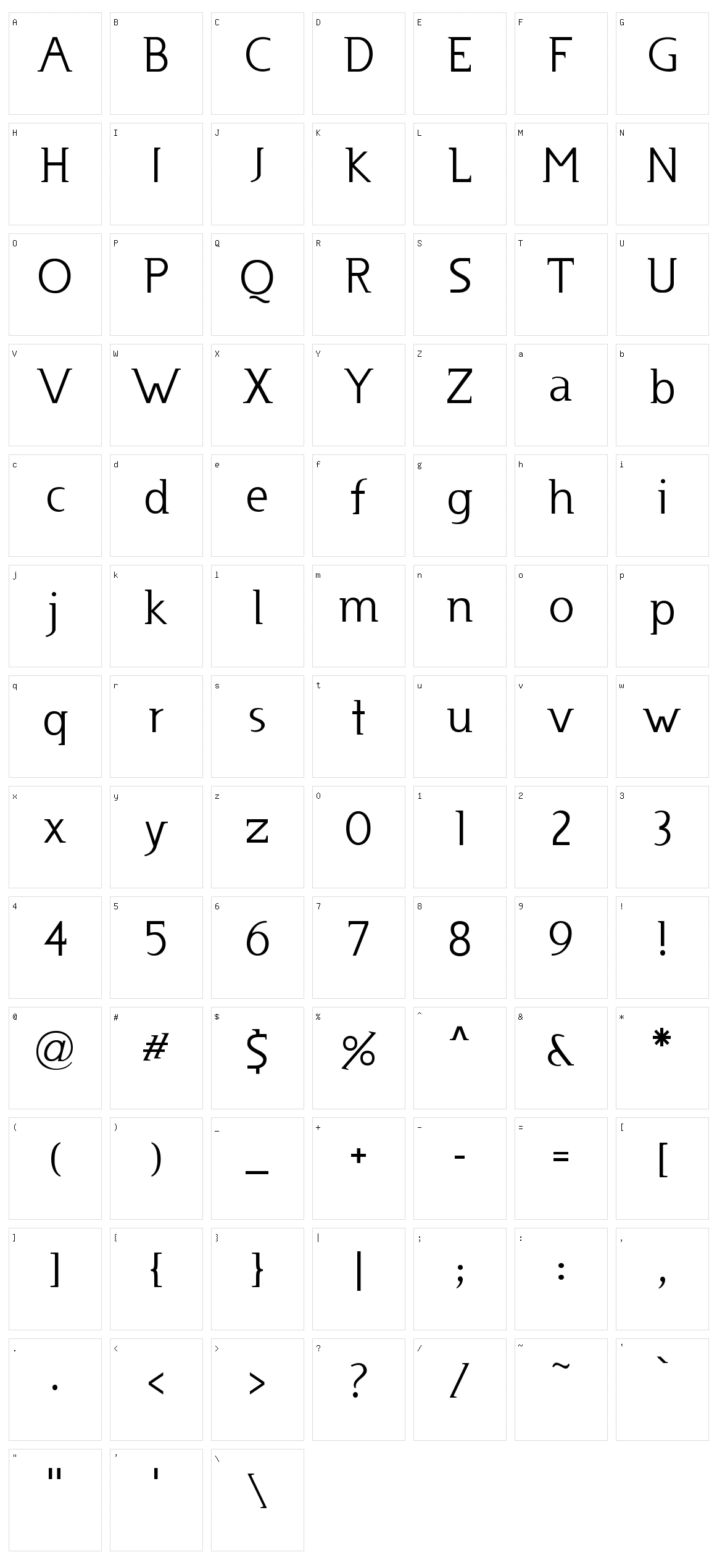
This package includes a font of many alternates and ligatures intended for use with Usenet. A .gif of that font's key chart is also included here for convenience.